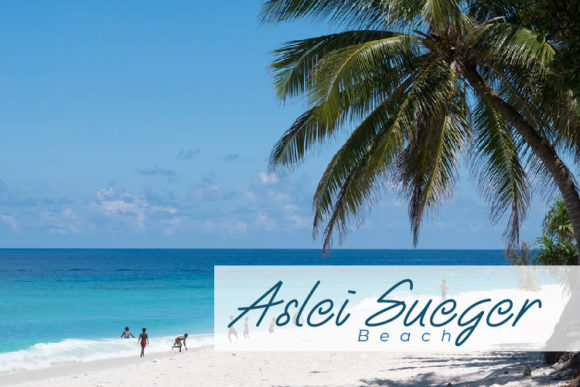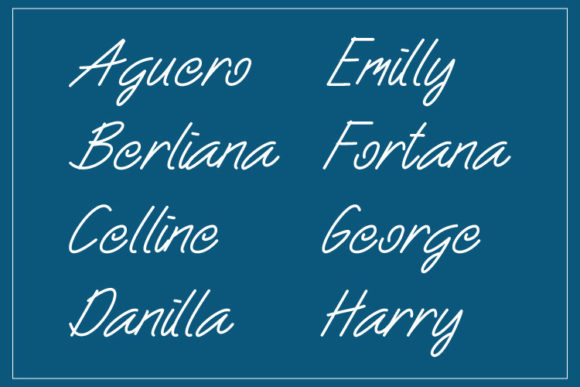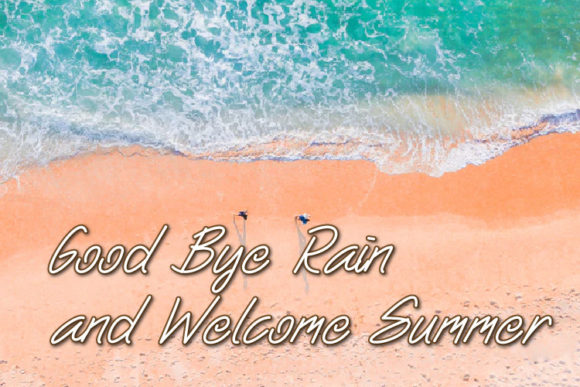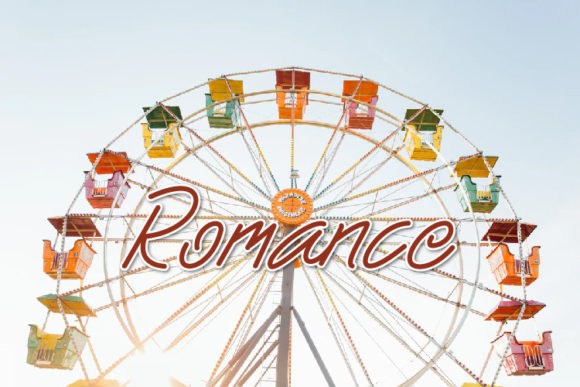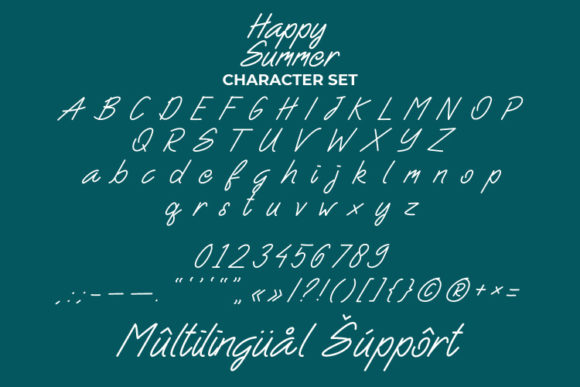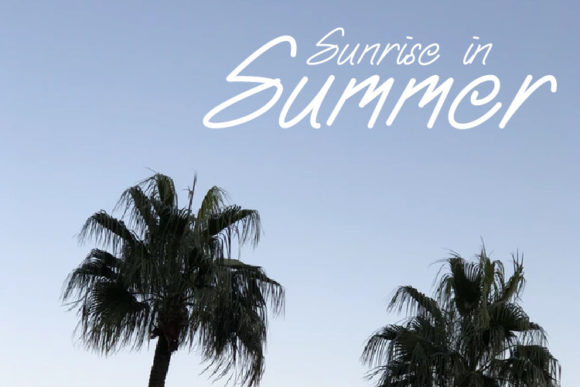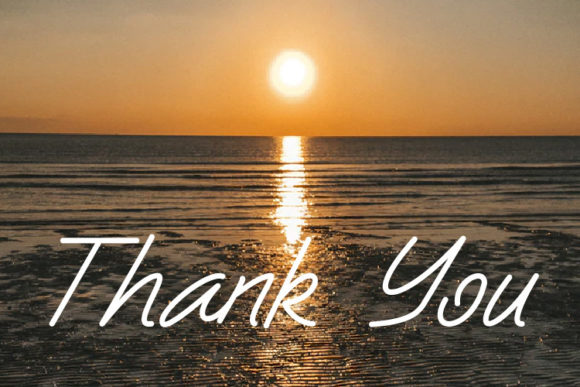
Happy Summer Font
About Happy Summer Font
Happy Summer is a modern script font that combines readability, cursive elements, and stylish design. Its sleek and smooth curves give it a contemporary and elegant look, making it an excellent choice for fashion branding and editorial designs.
With Happy Summer, you can confidently add a touch of sophistication to your projects. Whether you’re creating a fashion logo, a magazine layout, or an editorial spread, this font will elevate your designs with its clean and flowing letterforms.
The readability of Happy Summer ensures that your message will come across clearly to your audience. Each letter is carefully crafted to maintain legibility while still maintaining the script-style aesthetic. This makes it versatile for a range of design applications, including headlines, quotes, invitations, and social media graphics.
Happy Summer’s stylish design adds a touch of elegance to your projects. The flowing and connected letters create a sense of fluidity and grace, giving your designs a modern and sophisticated vibe. This makes it a perfect fit for fashion-related projects, as well as branding materials and high-end publications.
Whether you’re designing for print or digital platforms, Happy Summer will seamlessly adapt to your needs. Its clean and legible nature ensures that your text will be easily readable at various sizes and across different mediums.
So go ahead and confidently incorporate Happy Summer into your projects. Let its modern, readable, and stylish qualities enhance your designs and bring a fresh and sophisticated vibe to your work.